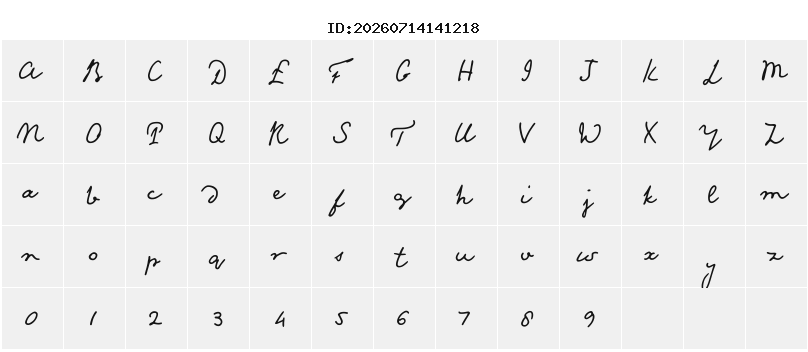
• Font Name: Jefferson
• Designer: Gennady Fridman
• Manufacturer: ParaType, Inc.
• Description: Script font "Jefferson" is based on real handwriting of Thomas Jefferson. Luckily there is a draft of original text of Declaration of Independence written by Jefferson available. It was used as a primary source for the font. Jefferson font was developed by Gennady Fridman for ParaType in 2005. It's built in OpenType format with a contextual substitution of letterforms and specific ligatures.